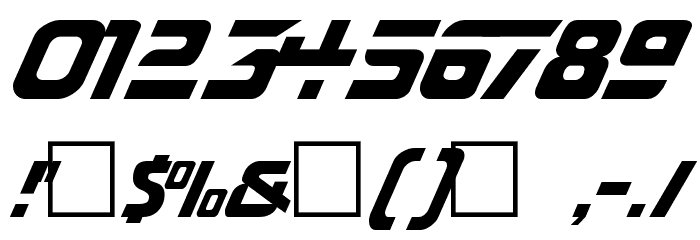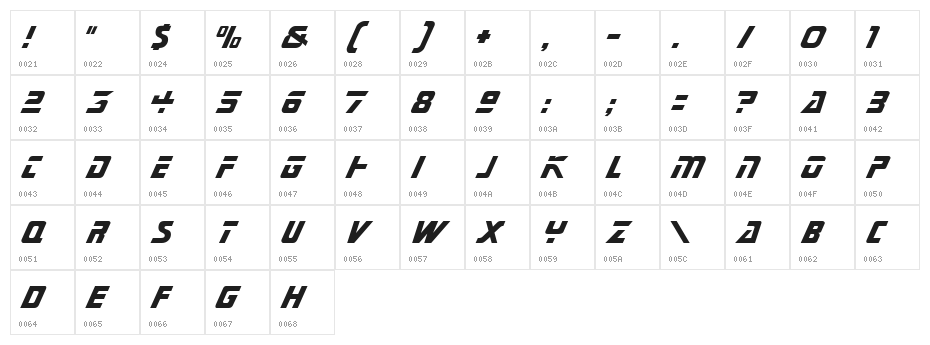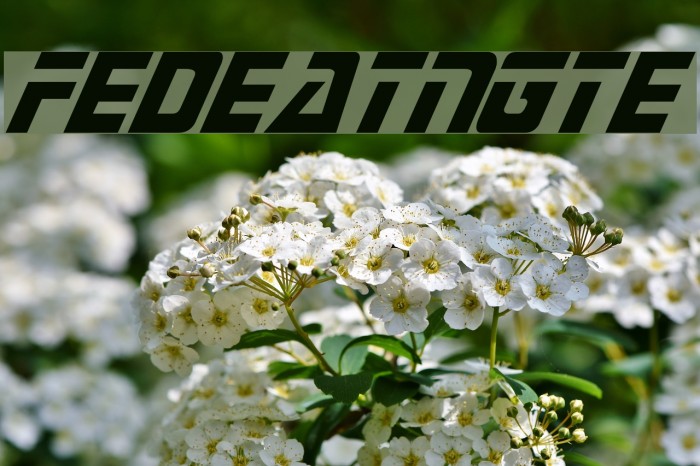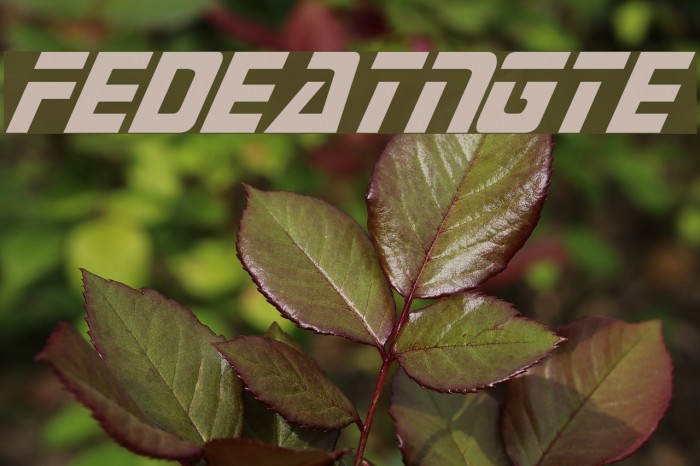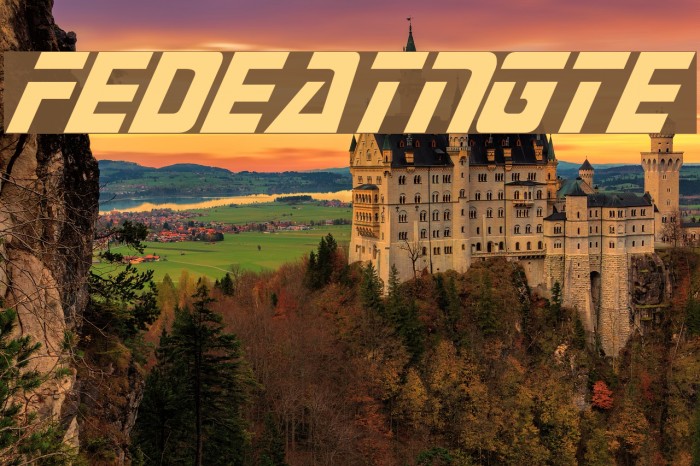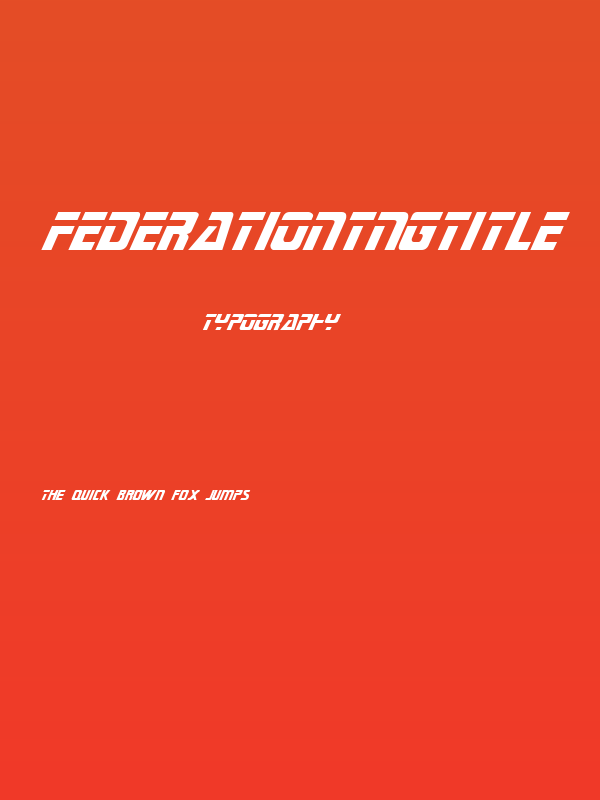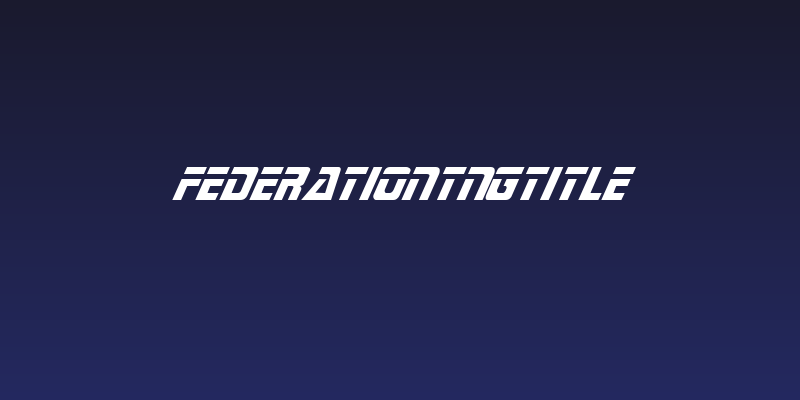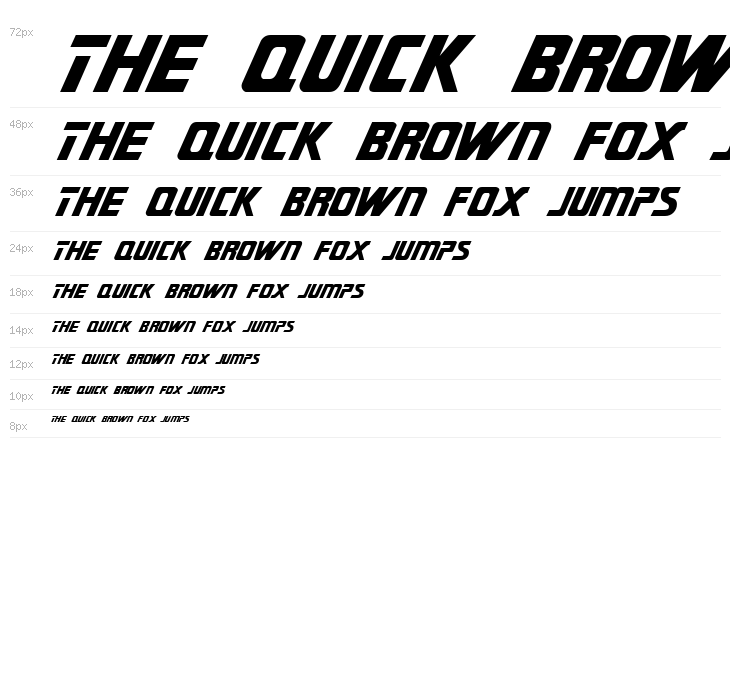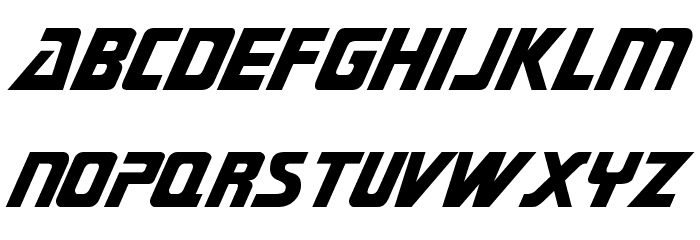
FederationTNGTitle Font
FederationTNGTitle Description
This font features a bold, futuristic design with sharp angles and a strong geometric presence. The uppercase letters are particularly striking, with a consistent slant that gives a sense of motion and speed. The characters are wide and have a substantial weight, making them ideal for impactful headlines or titles. The numbers and special characters maintain the same dynamic style, ensuring a cohesive look across all text elements. The font's modern aesthetic is reminiscent of science fiction themes, making it suitable for projects that require a contemporary and bold appearance.
| Proposed Projects | Ideal for sci-fi themed projects, video game titles, movie posters, and technology branding. |